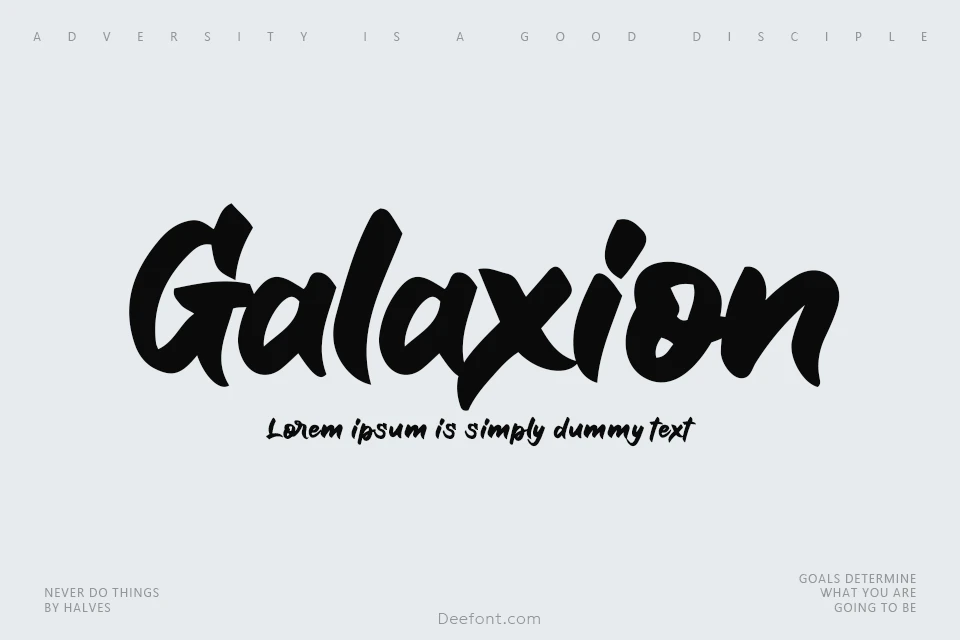
Galaxion Font
Galaxion Font is a Strong Display Font, from Letterena, is a premium brush font, suitable for any projects such as: logos, branding projects, homeware designs, product packaging, mugs, quotes, posters, shopping bags, t-shirts, book covers, name card, invitation cards, greeting cards, label, photography, watermark, special events, and all your other luxury projects that need a strong display taste.